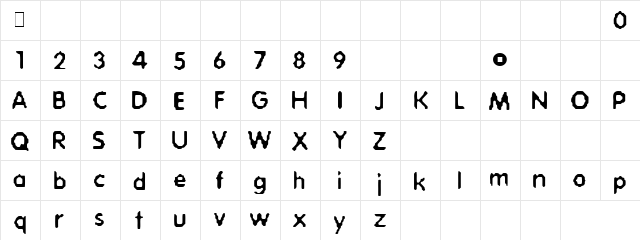
Impressole Regular
Design Context for Impressole Typeface
Impressole is a composed and adaptable typeface that performs quietly and consistently across a wide range of design contexts.